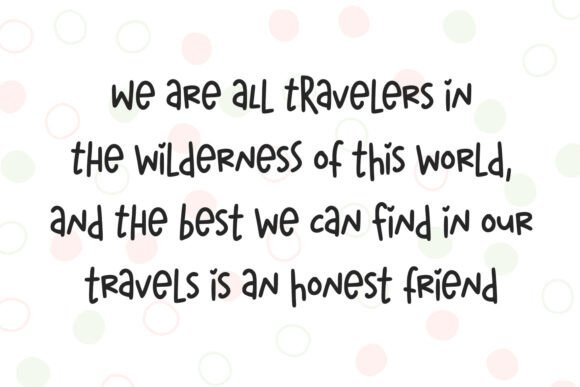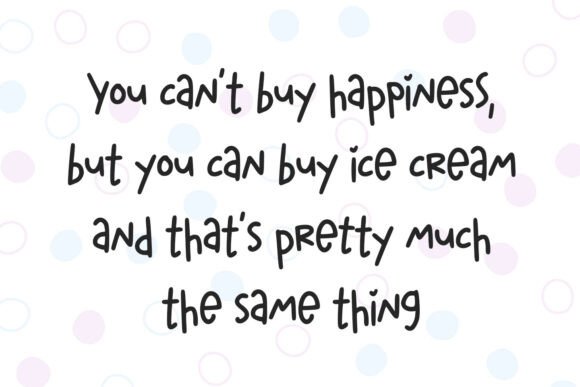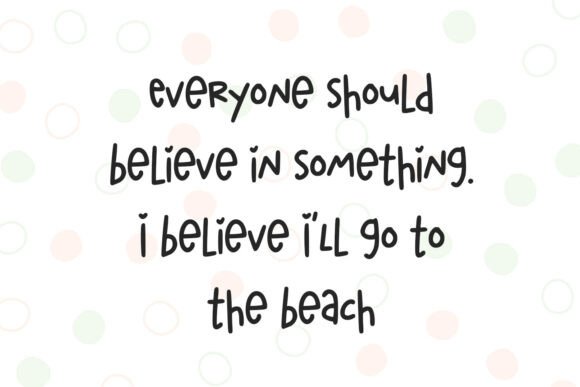
Introduction to Angelhand Font
Have you ever sat at your desk, staring blankly at a blank page, trying to bring your creative vision to life? The cursor blinks tauntingly, and your mind is a jumble of ideas, but nothing seems quite right. It’s moments like these that a trusty design resource can make all the difference.
Enter the Angelhand Font, a sweet and friendly handwritten font that’s about to become your new best friend. Its natural and unique style makes it incredibly fitting to a large pool of designs, from greeting cards to social media graphics, and everything in between. With the Angelhand Font, the only limit is your imagination, and the possibilities are endless.
Key Features of Angelhand Font
- High-quality design resource ideal for creative projects and graphic designs.
- Features a transparent background, allowing for easy integration with any design.
- Unique characteristics include elegant and modern script styles, perfect for adding a touch of sophistication to any creative project.
- Comes in a range of sizes, including 300 DPI and 600 DPI resolutions, suitable for various design applications.
- Designed to be versatile and suitable for a wide range of creative projects, from wedding invitations to branding materials.
Honest Review: Angelhand Font
- ✨ High-quality design with clean lines and a modern aesthetic.
- ✨ Comes in a range of weights, making it easy to customize for different design needs.
- ✨ Transparent background, allowing for easy layering and blending with other design elements.
- ⚠️ Limited character set, which may not be suitable for extensive text-based designs.
- ⚠️ Not suitable for use in print media due to its digital origins.
Overall, I’m impressed with the Angelhand Font. It’s a great design resource for digital projects and can add a touch of elegance to any creative project. While it has some limitations, its strengths make it a valuable addition to my design library.
Tips for Getting the Most Out of Angelhand Font
To get the most out of Angelhand Font, use it in your creative project to add a touch of elegance and sophistication. You can use it to create custom titles, headings, and body text, and combine it with other design resources to create a unique and eye-catching design.
Angelhand Font is a versatile design resource that can be used in a variety of creative projects, including branding, marketing materials, and digital products. It’s perfect for designers who want to add a touch of high-end style to their designs.